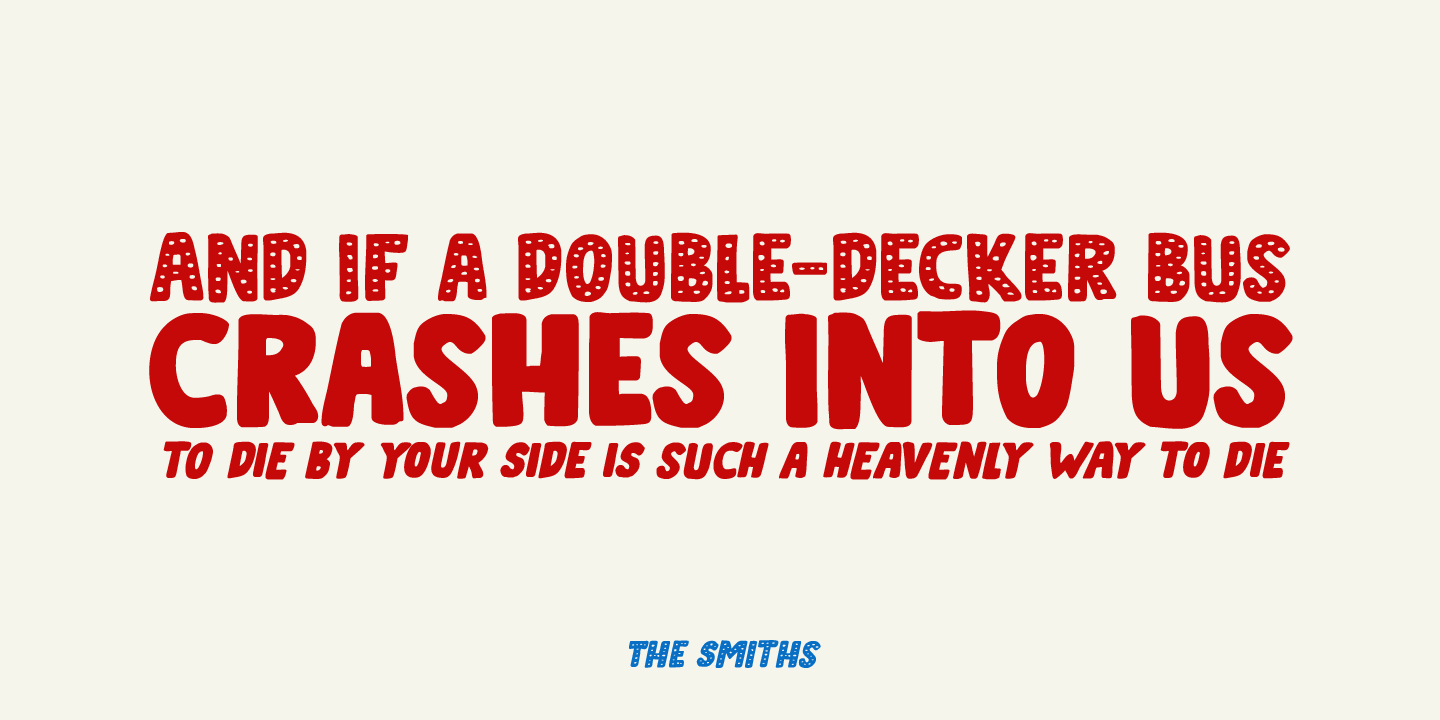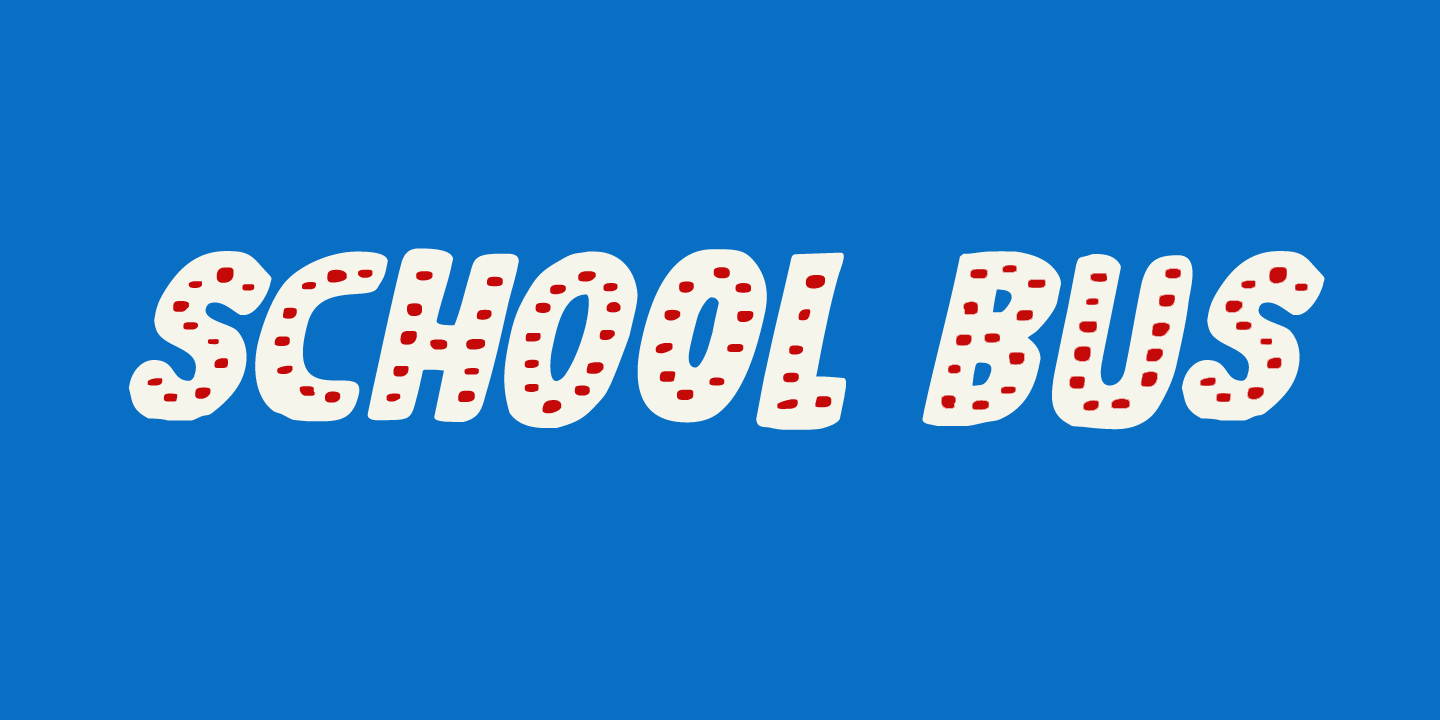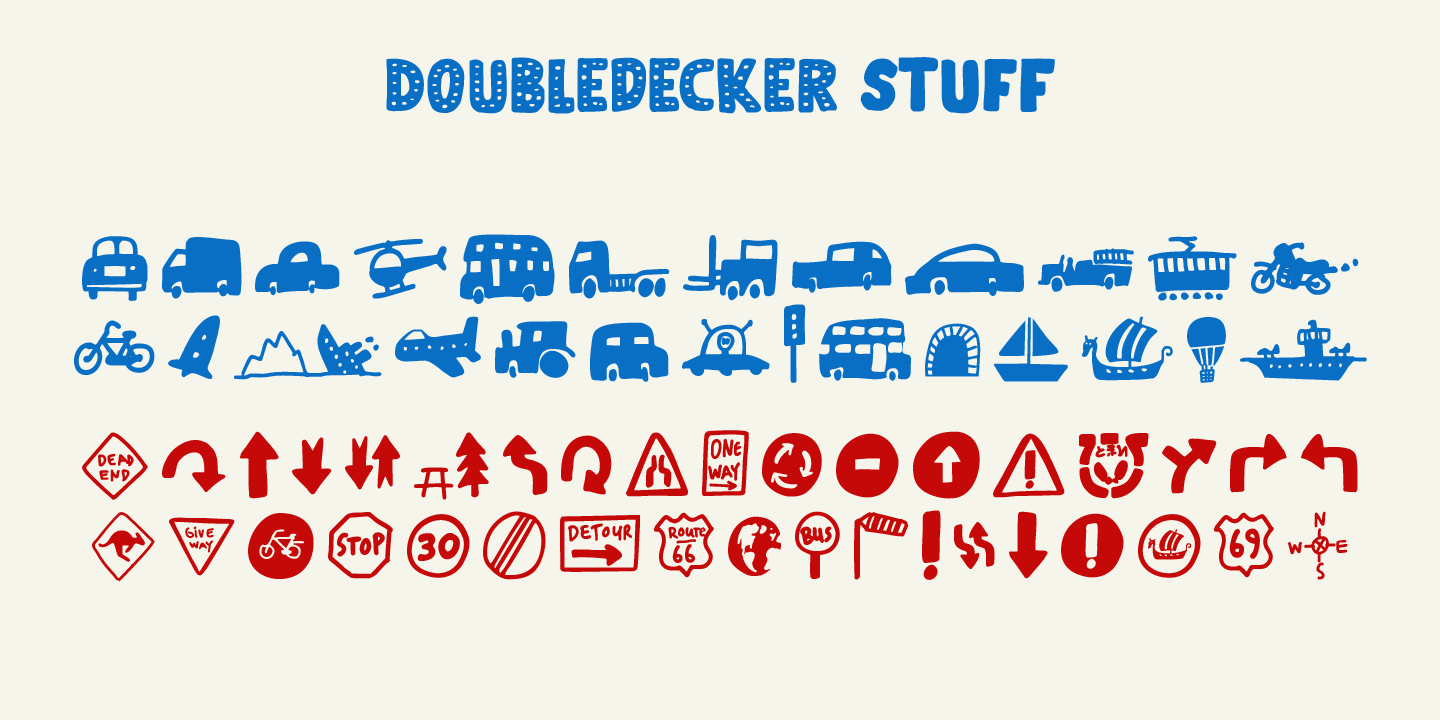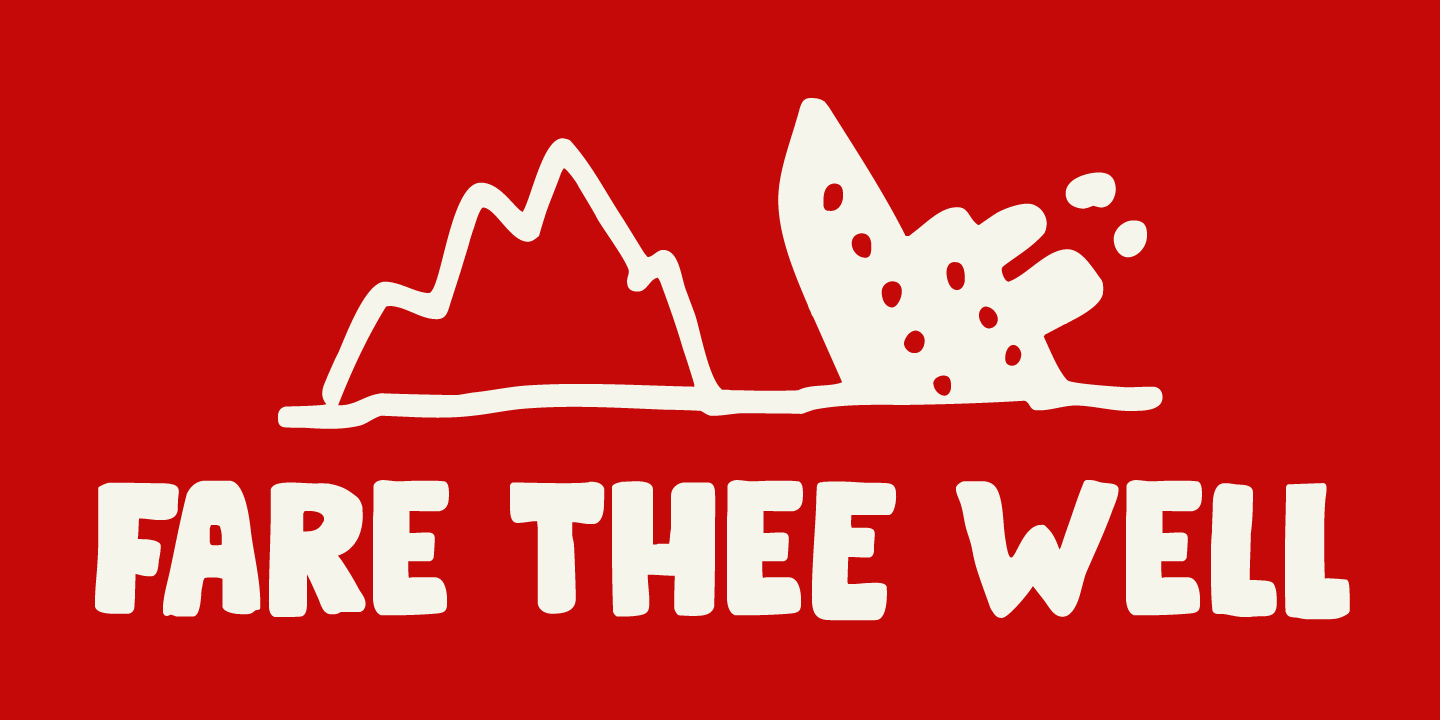
I love riding English double decker buses! I haven\’t been on one lately, but for some reason I had an image of a red double decker bus in my head when I made this font. Doubledecker is a bold, cartoon-like, handmade font. It comes in regular and dots,…